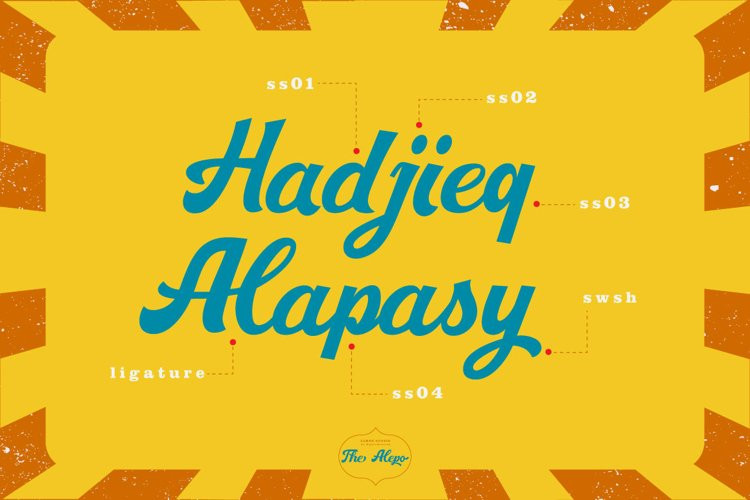
The Alepo Font
The Alepo FontThe Alepo is a Modern Retro Script font.
This font describes about stylist, modern retro, modern vintage, and cool. This font inspired from the modern retro typography and designs in late 80’s untill 90’s.